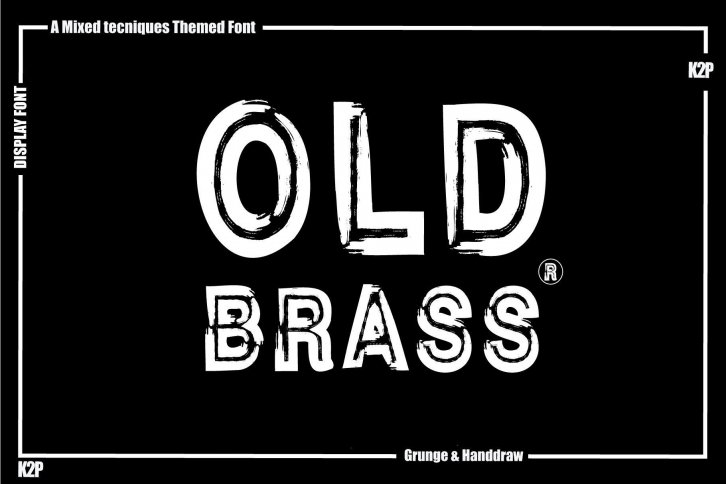
Old Brass is a bold, incredibly cool, and assertive display font. It can be used for various design ideas related to speed, sports, or both. Have fun with this beautiful font and explore its endless variations.